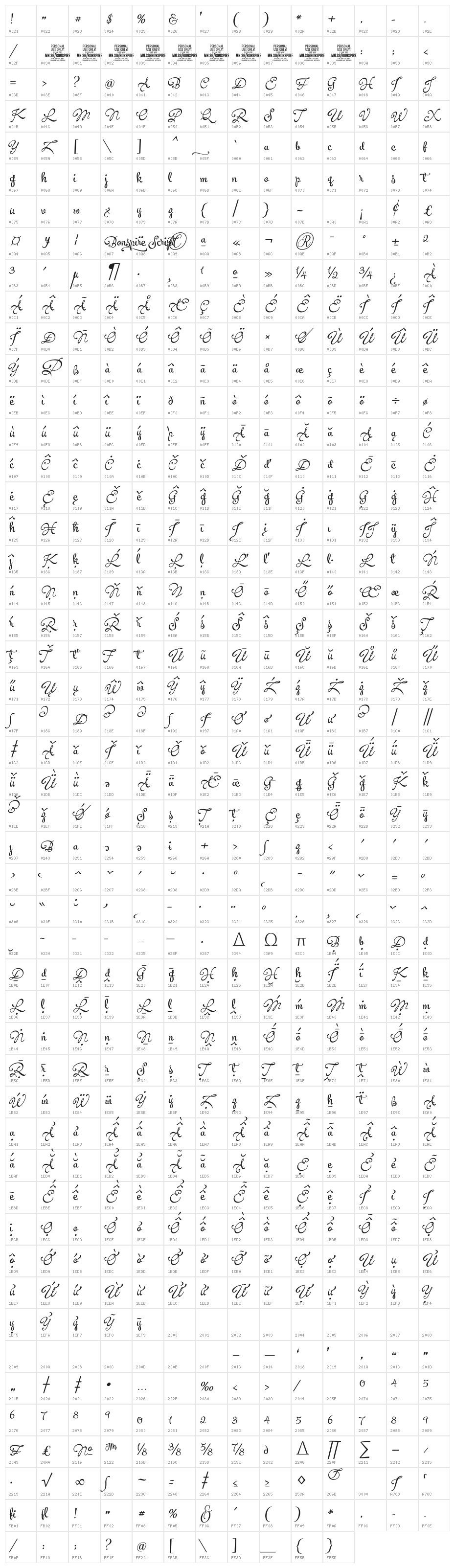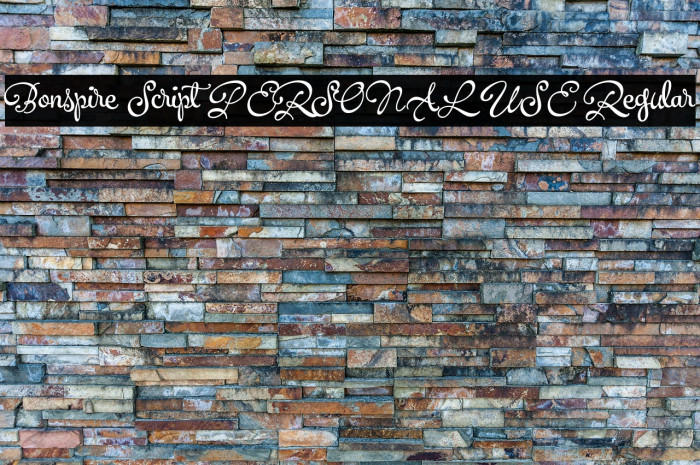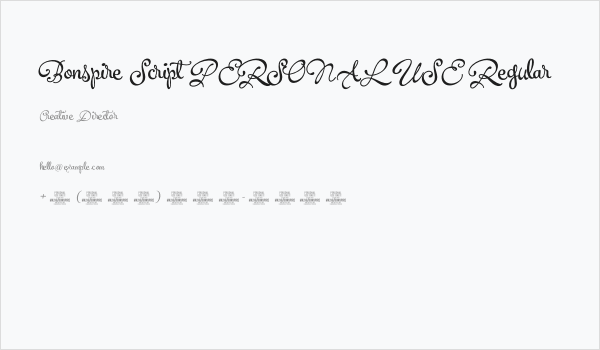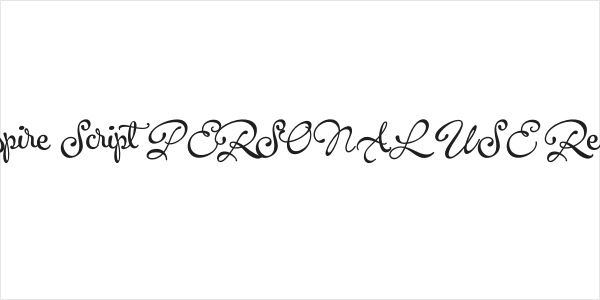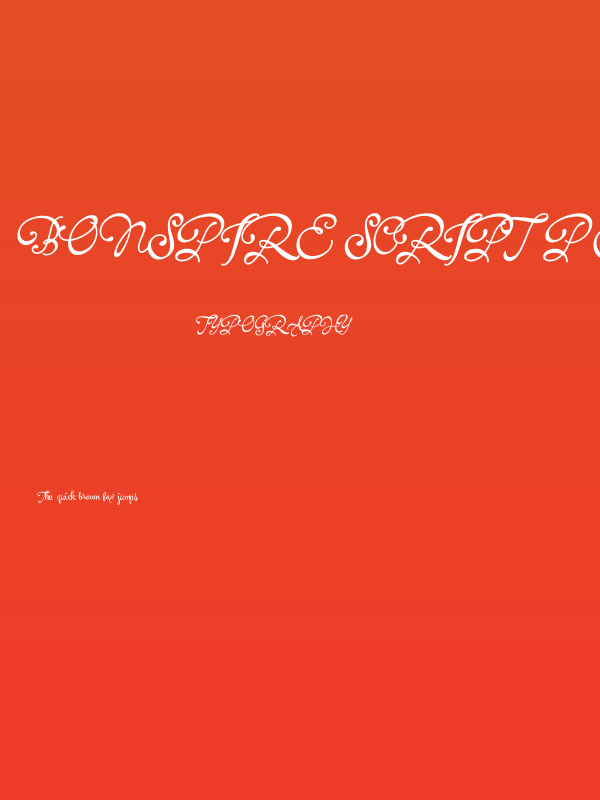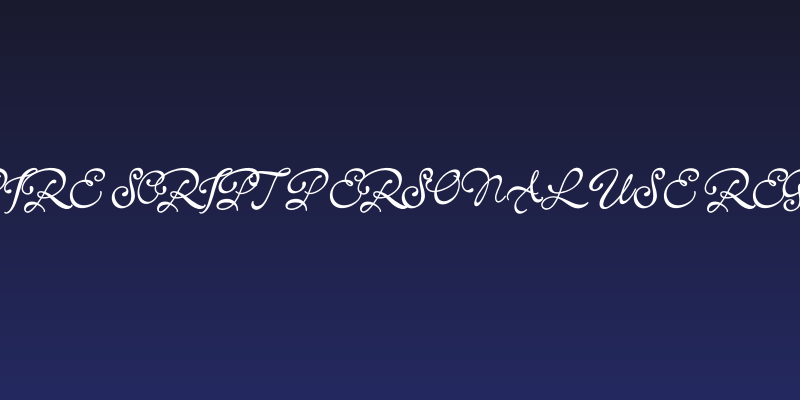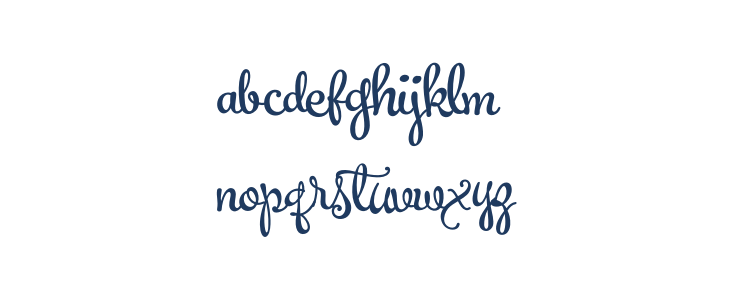
Bonspire Script PERSONAL USE Regular Font
Bonspire Script PERSONAL USE Regular Description
This elegant script font features flowing, interconnected letters that exude a sense of sophistication and grace. The uppercase letters are adorned with intricate loops and swirls, creating a sense of movement and fluidity. The lowercase letters maintain a consistent style, with smooth curves and a slightly playful touch. The numbers and special characters are designed to complement the overall aesthetic, maintaining the same decorative flair. This font is ideal for projects that require a touch of elegance and personality, such as invitations, branding, and decorative text.